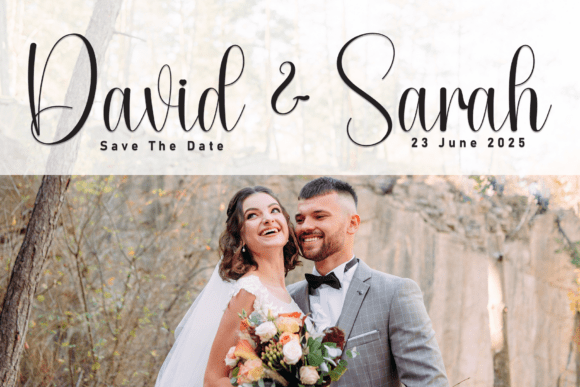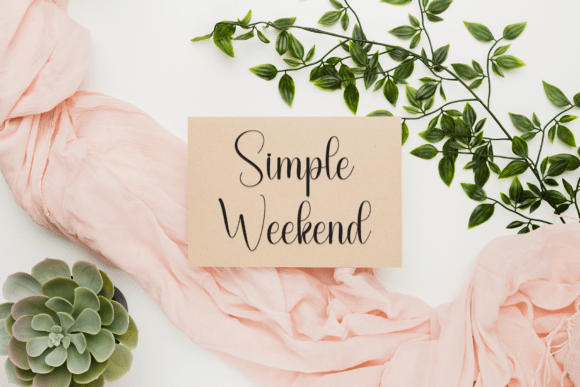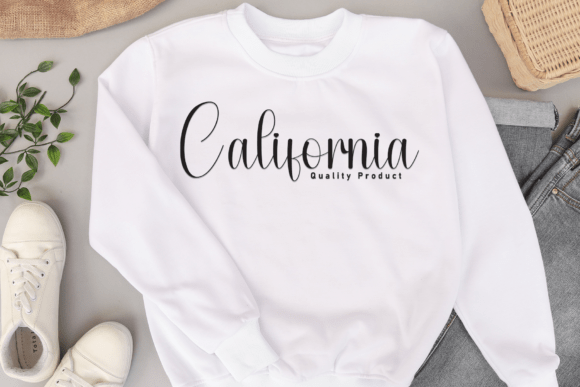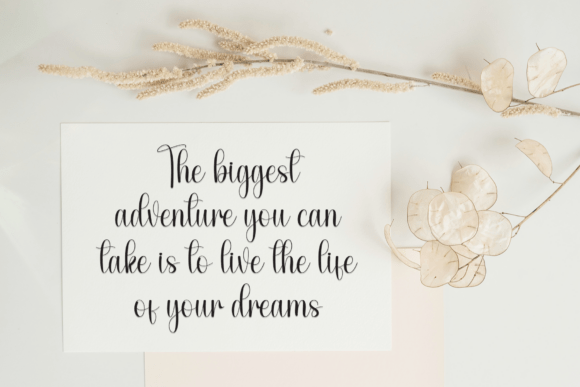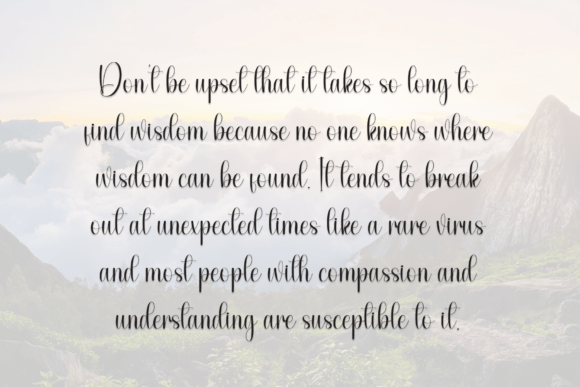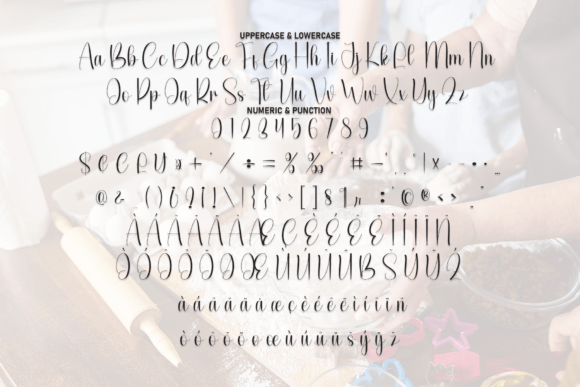
The Sweet Taste of Design: Introducing Baking Font
Do you remember the moment when you finally found the perfect font to elevate your design project? The one that made you feel like you’d hit the jackpot? For many designers, that moment is what makes all the hard work worth it. And today, we’re excited to share with you a font that’s sure to become your new go-to: Baking Font.
Baking Font is a stylish script font that exudes creativity and modern elegance. Its flowing strokes, graceful curves, and expressive letterforms capture the beauty of hand-drawn calligraphy with a contemporary flair. Whether you’re creating logos, invitations, packaging, or social media graphics, Baking Font adds an artistic and sophisticated touch that’s hard to resist. With its natural rhythm and refined details, this font delivers both visual charm and versatility, making it a valuable addition to any designer’s toolkit.
Baking Font Key Features
- Unique Characteristics: Designed specifically for bakery and food-related businesses, includes icons and symbols for ingredients, cooking tools, and more
- Font Style: A mix of modern and classic elements, perfect for creating a warm and inviting atmosphere in bakeries and cafes
Baking Font Review
I recently had the chance to work with the Baking Font, and I must say it’s a mixed bag. ✨ On the plus side, the font’s cursive script is beautifully crafted, with smooth lines and a delightful feel to it. It’s perfect for adding a touch of warmth and personality to baking-related projects.
The font comes in a range of weights, from light to bold, which is great for versatility. It also supports a variety of languages, making it a great option for international projects.
- Beautifully crafted cursive script
- Smooth lines and delightful feel
- Range of weights for versatility
- Support for multiple languages
However, I do have some concerns about the font’s limitations. ⚠️ The font’s italic styles can be a bit inconsistent, and the bold weight can be a bit too bold for some projects. Additionally, the font’s kerning can be a bit off, especially in certain combinations of characters.
Overall, I’d say the Baking Font is a solid choice for baking-related projects, but it may not be the best option for more complex or professional projects. With a bit more attention to detail on the italic styles and kerning, this font could be a real winner.
Tips for Getting the Most Out of Baking Font
Here are some tips to help you get the most out of Baking Font:
– Use it for food-related designs, such as recipe cards, menus, or bakery logos.
– Experiment with different font sizes and colors to create a visually appealing design.
– Combine Baking Font with other design elements, such as images or graphics, to create a cohesive look.
Some common use cases for Baking Font include:
– Recipe cards and menus for bakeries or restaurants.
– Bakery logos and branding materials.
– Food-related social media graphics and ads.
– Print materials, such as brochures or flyers, for bakeries or food-related businesses.
Alternatives to Baking Font
Great Vibes is a beautiful, handwritten font perfect for creating a casual and friendly atmosphere. It’s ideal for use in social media posts, blog articles, and advertising materials where a touch of personality is desired.
Compared to Baking Font, Great Vibes has a more modern and trendy feel. While Baking Font is great for baking-related content, Great Vibes can be used in a wider range of contexts.
Crimson Text is a elegant and refined serif font suitable for use in editorial content, such as magazines and newspapers. It’s also great for creating a sense of sophistication and luxury.
Unlike Baking Font, Crimson Text is more formal and less playful. It’s better suited for content where a sense of professionalism is desired.